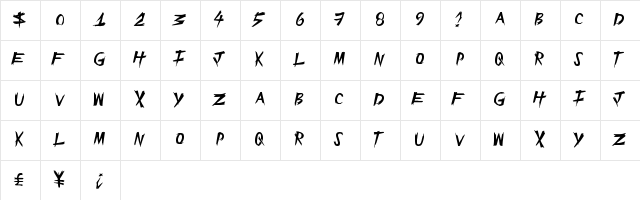
EpicSlash Regular Font Preview
EpicSlash Regular
EpicSlash Regular Font Details
| Foundry | Xerographer Fonts |
| Designer | Max Infeld |
Design Context for EpicSlash Typeface
EpicSlash is a composed and adaptable typeface that performs quietly and consistently across a wide range of design contexts.